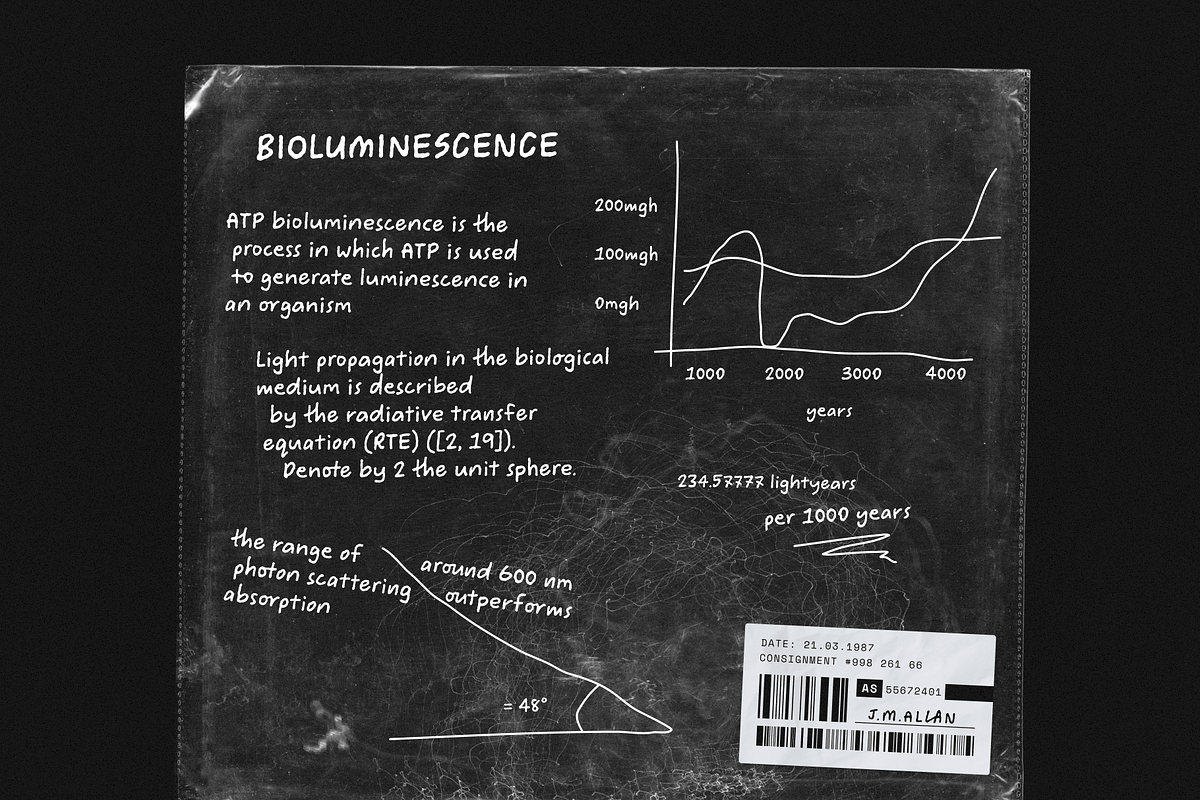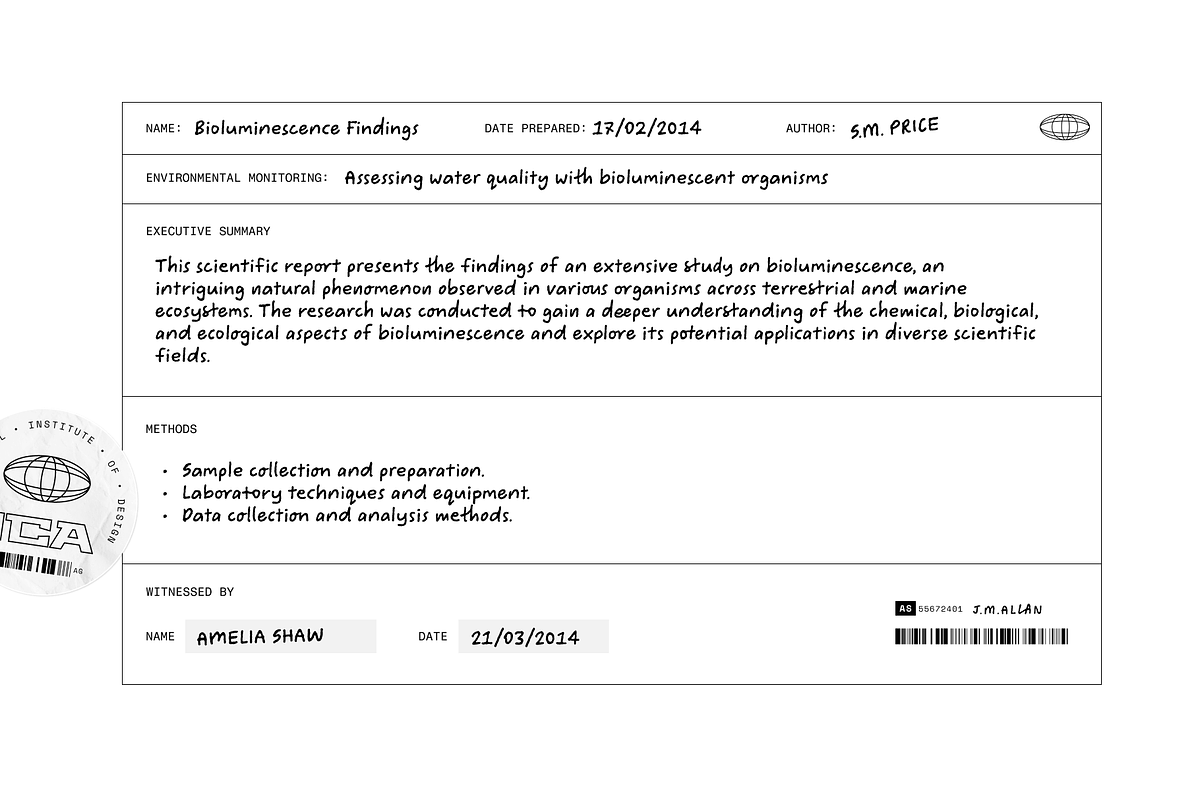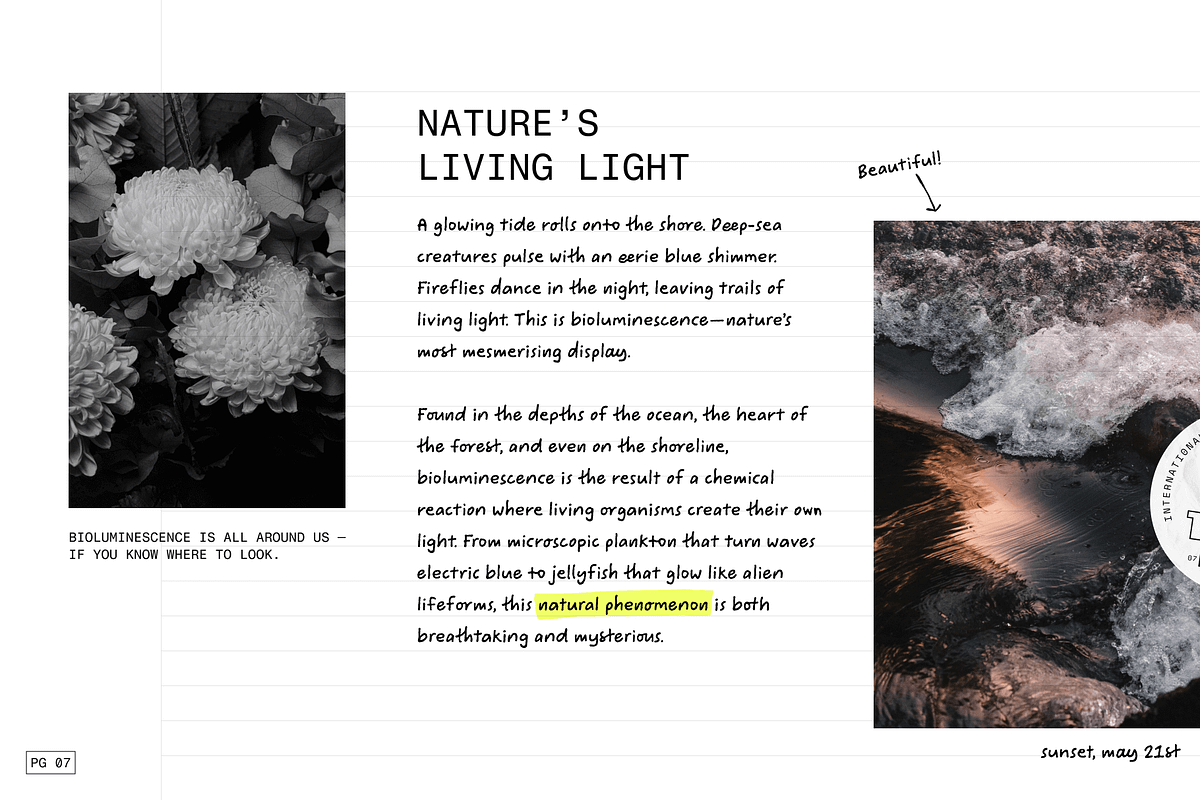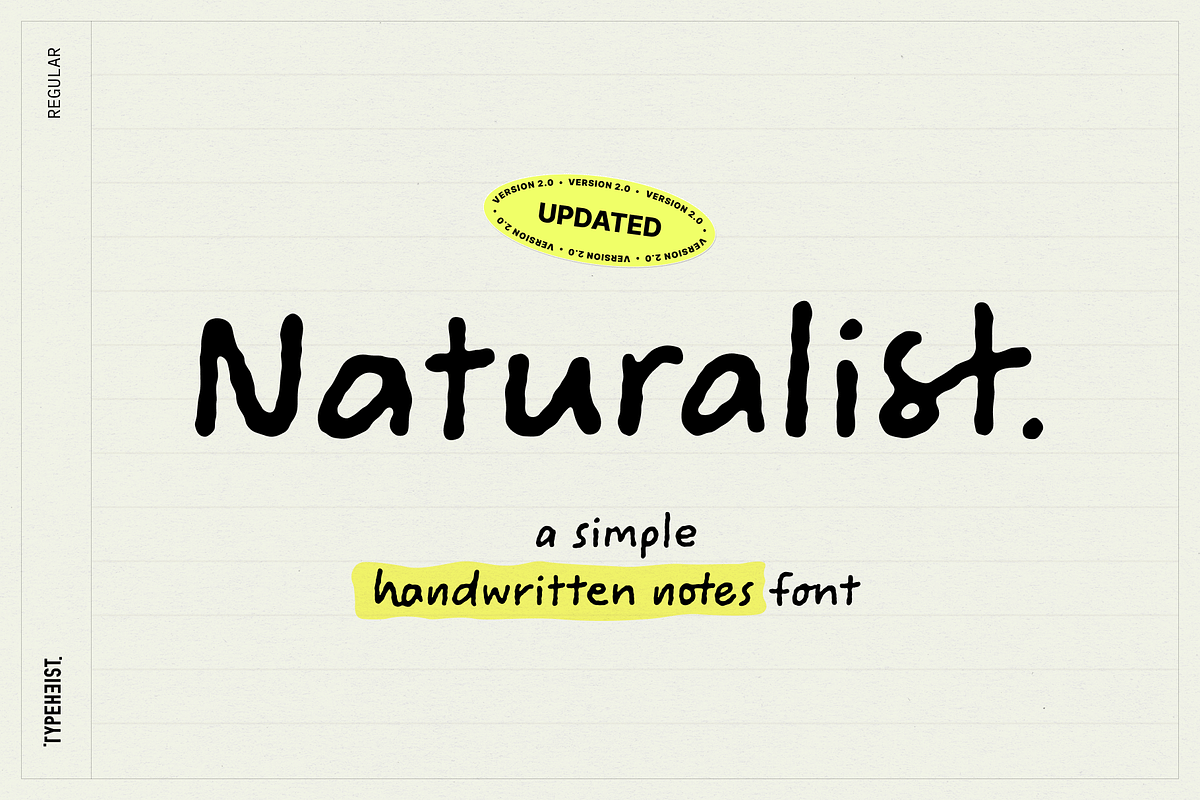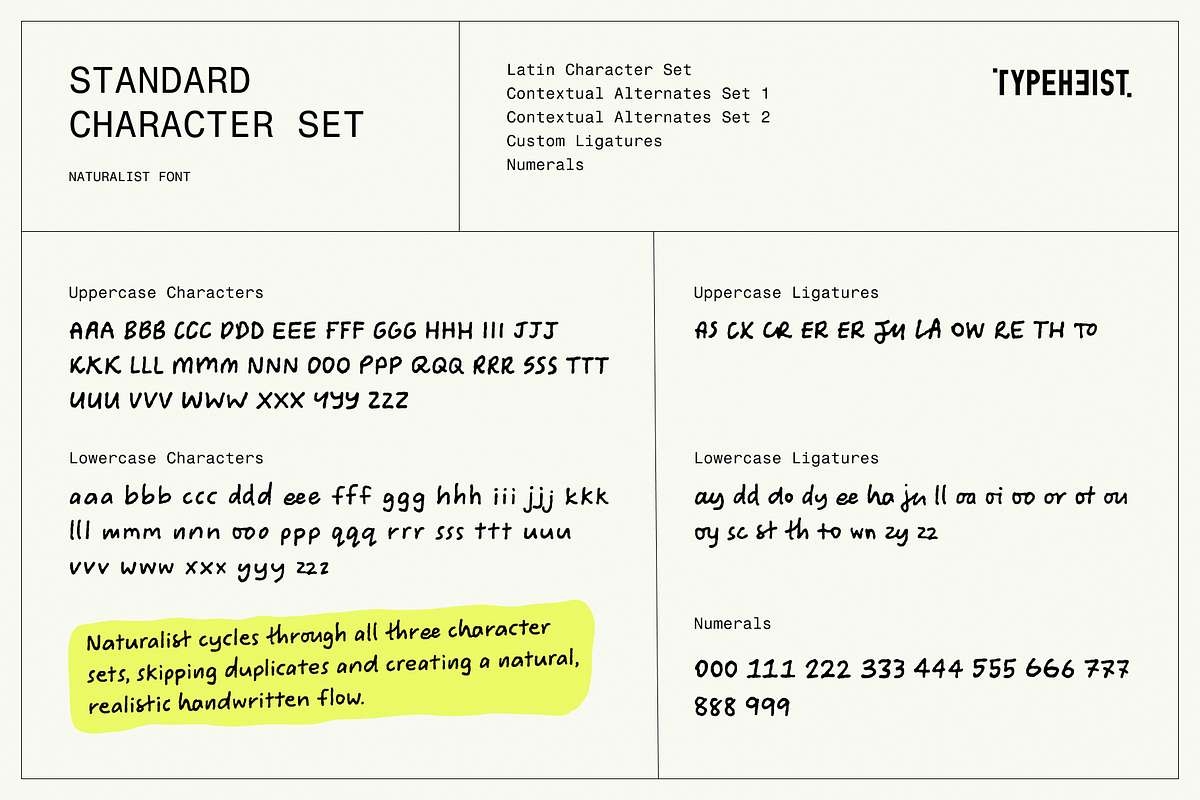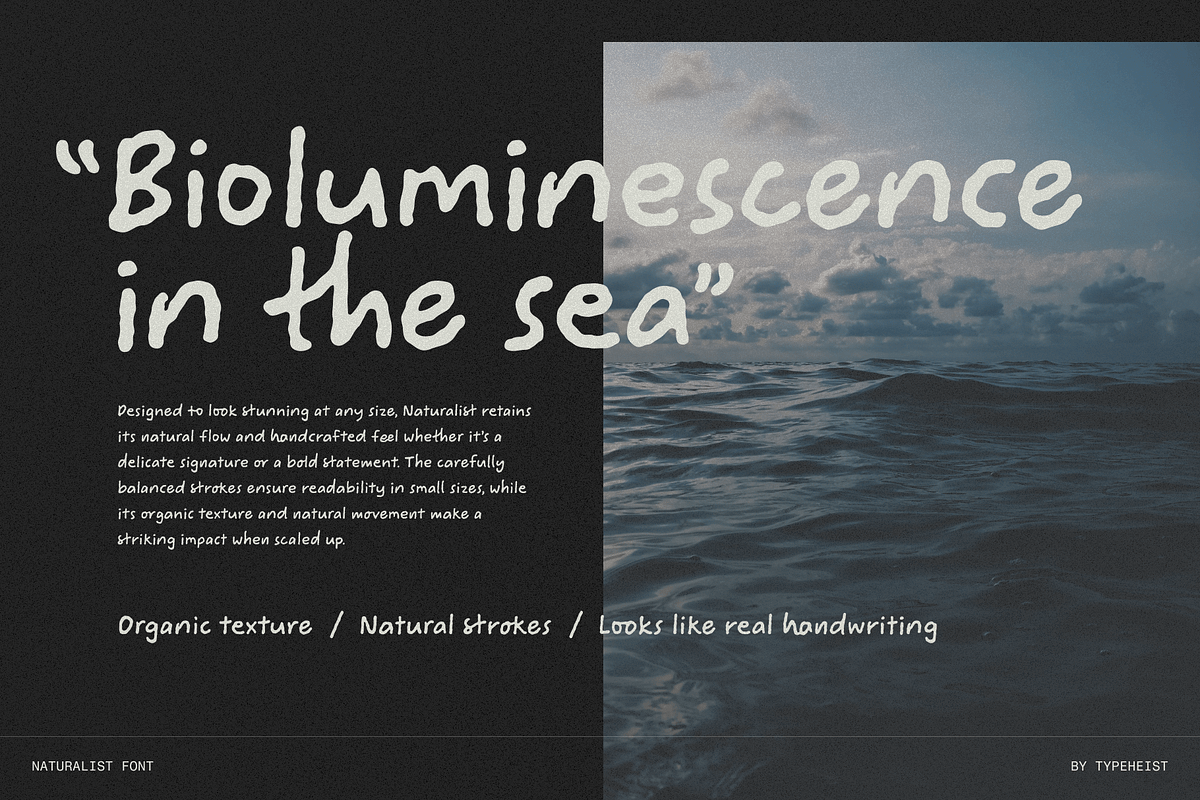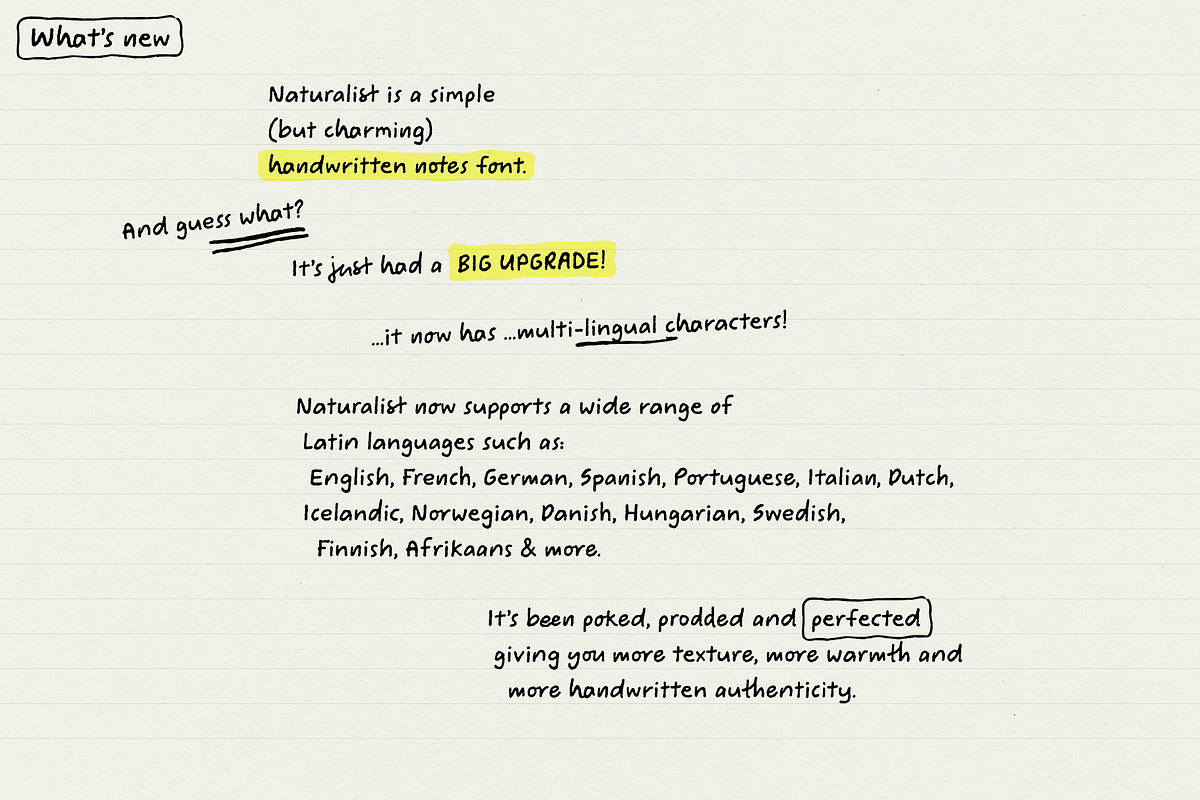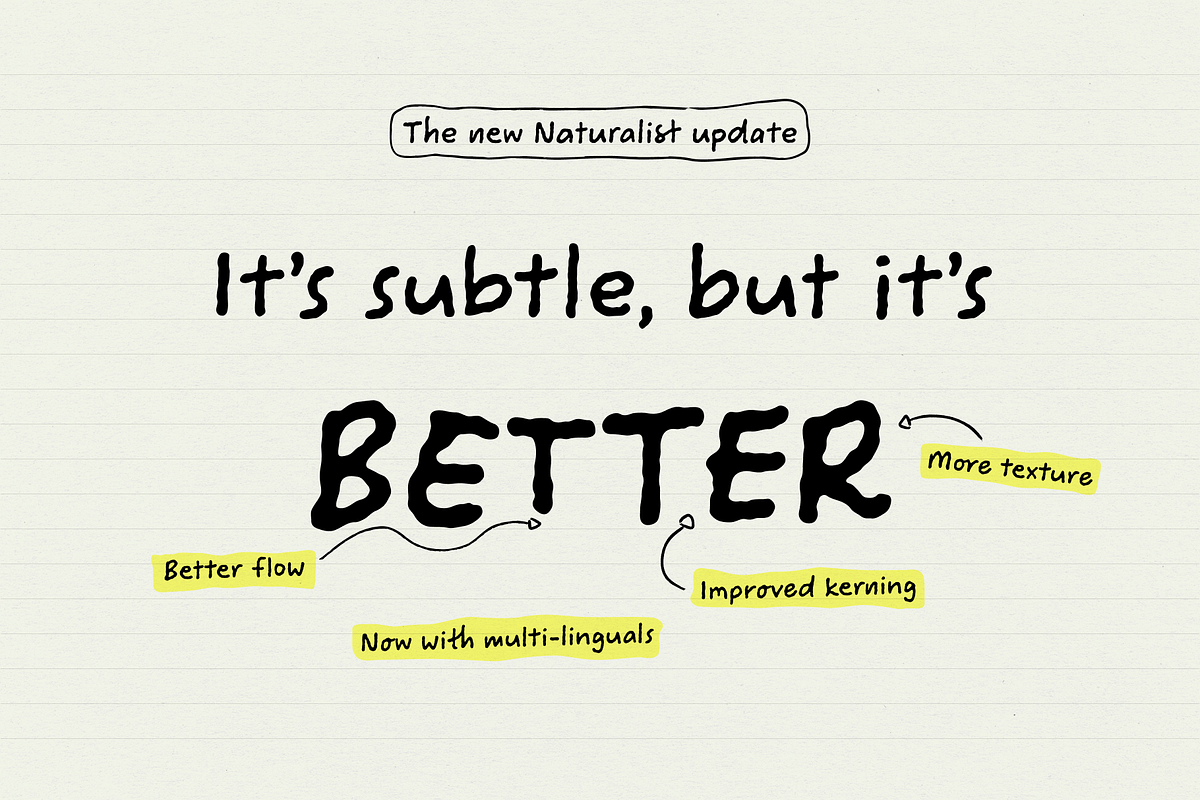
Naturalist Simple Handwriting Font
Naturalist is a simple (but seriously charming) handwritten notes font.
And guess what? It just got a big upgrade.
It’s now multilingual! 🎉
Naturalist now supports a wide range of Latin-based languages, including English, French, German, Spanish, Portuguese, Italian, Dutch, Icelandic, Norwegian, Danish, Hungarian, Swedish, Finnish, Afrikaans and more.
It’s been poked, prodded and perfected giving you more texture, more warmth and more handwritten authenticity.
Why is it special? In additional to its custom ligatures, Naturalist includes 2x sets of contextual alternates for each A-Z and 0-9 characters. This means one of the three available characters are selected randomly when double letters are typed.
Whether you aim to capture the nostalgic essence of your old school books and study notes or bring a touch of authenticity to complex maths and science manuscripts, Naturalist is your intellectual accomplice.